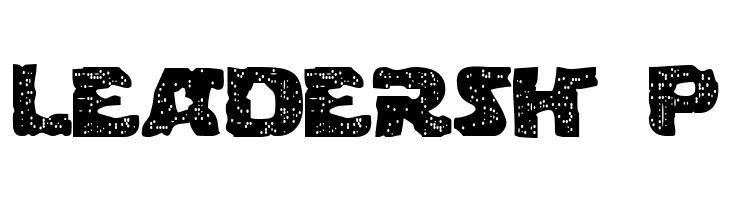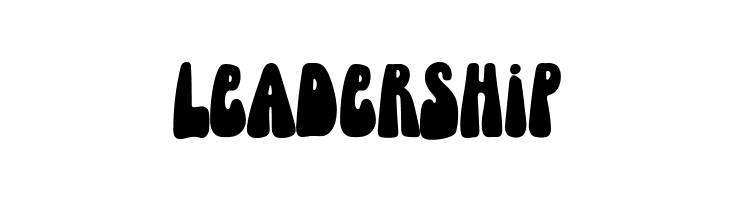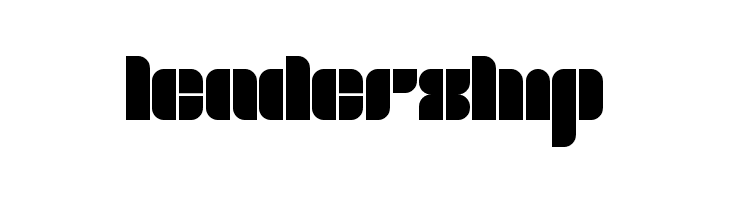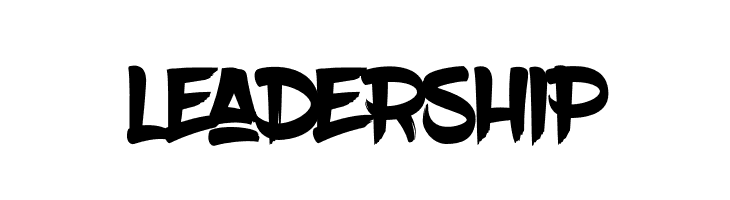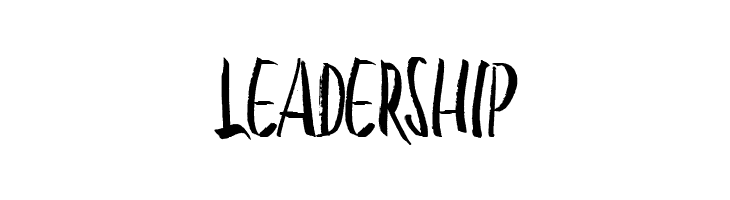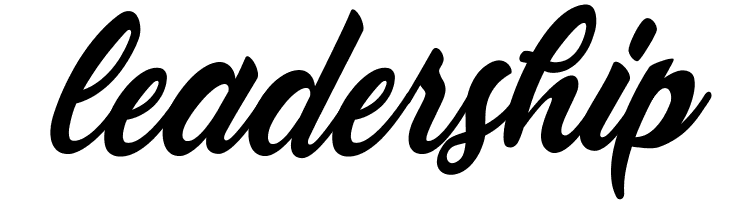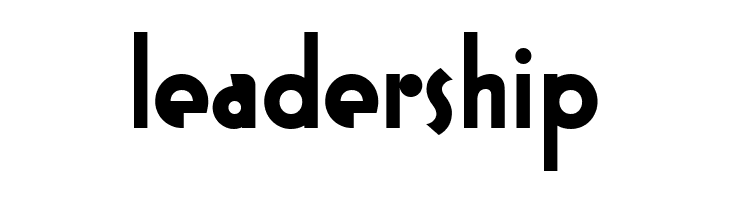
A modern, cursive font with elegant, flowing strokes and a slight slant.
A bold, playful, and bubbly font with a cartoonish, balloon-like appearance.
A bold, modern font with geometric shapes and a futuristic style.
A bold, brush-stroke font with an energetic and artistic style.
A delicate, flowing script font with elegant, interconnected strokes.
A bold, playful font with rounded, whimsical characters.
A bold, playful, and italicized font with rounded characters and tight spacing.
A bold, playful font with rounded, hand-drawn characters.
A bold, playful, and dynamic font with rounded, slanted characters.
A decorative font with interconnected dots and splatters, resembling ink blots.
A bold, playful font with bubble-like, rounded characters.
A bold, bubble-like italic font with a playful and modern style.
A bold, playful font with rounded, bubble-like characters.
A bold, playful font with rounded, bulbous characters.
A bold, intricate Blackletter-style font with sharp, angular lines and dramatic curves.
A bold, geometric font with fragmented, block-like characters.
A bold, geometric font with a three-dimensional, decorative style.
A bold, geometric, and condensed font with a modern, block-like appearance.
A bold, geometric font with a modern and assertive style.
A bold, geometric font with a modern and cohesive design.
A bold, modern font with a unique striped pattern and rounded characters.
A bold, 3D block font with shadow effects, offering a modern and impactful style.
A bold, blocky font with a distressed, stamped texture for a rugged, industrial look.
A pixelated, retro-style font with bold, blocky characters and rounded corners.
A playful, block-style font with bold, uppercase letters in 3D blocks.